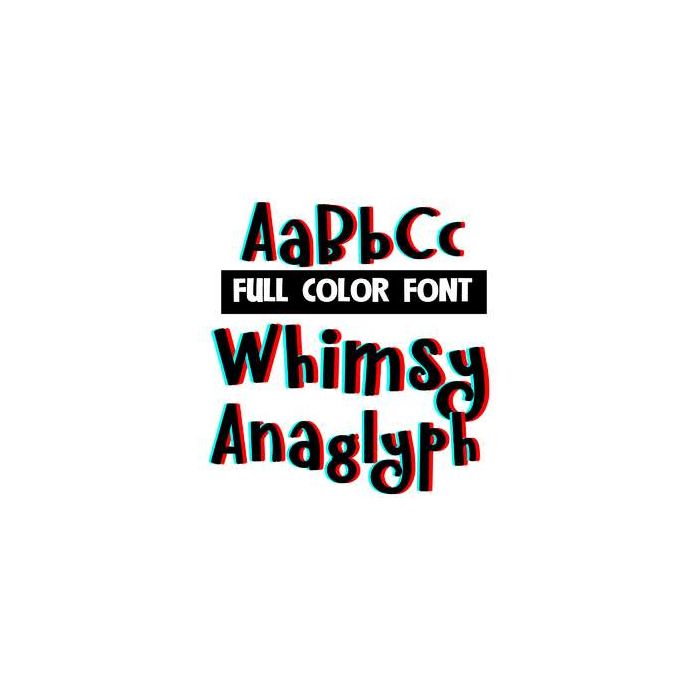
This full-color font is done in the anaglyph technique to create a dimensional effect when used with red and blue lens glasses. This font works best for titles, displays, posters and more. Please note color fonts will show as black in non compatible programs. This font type is compatible with Silhouette Studio.